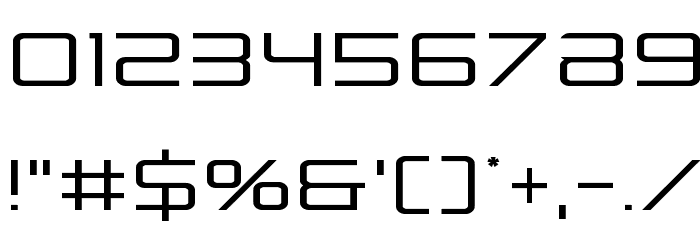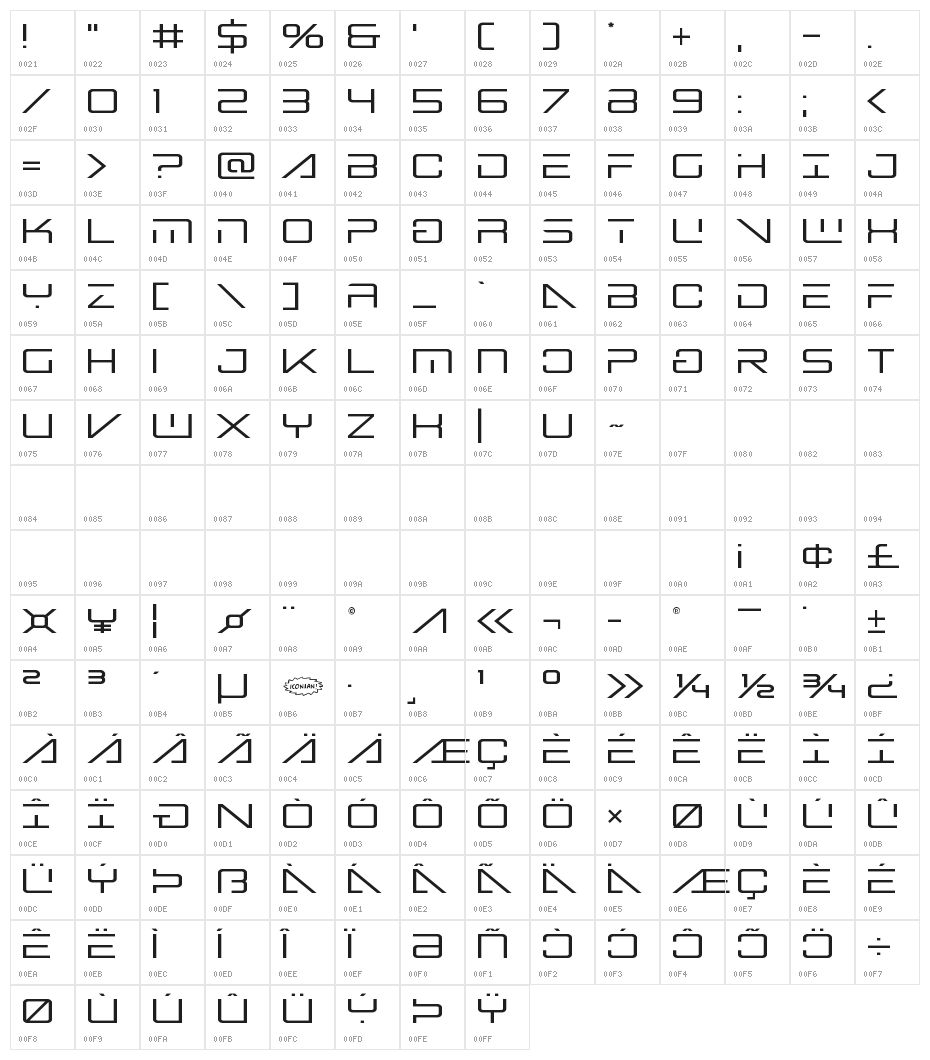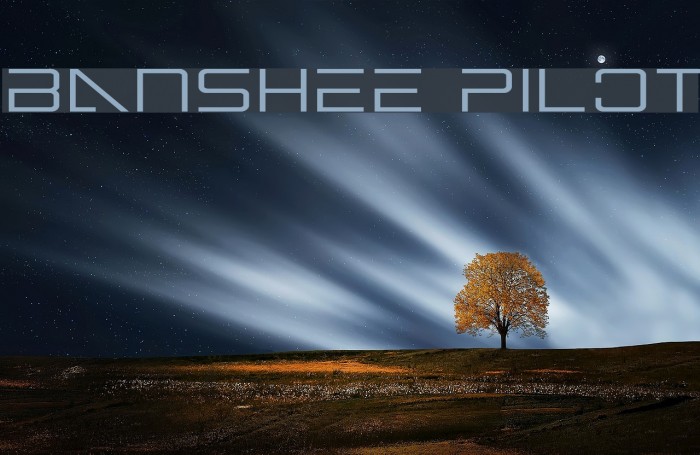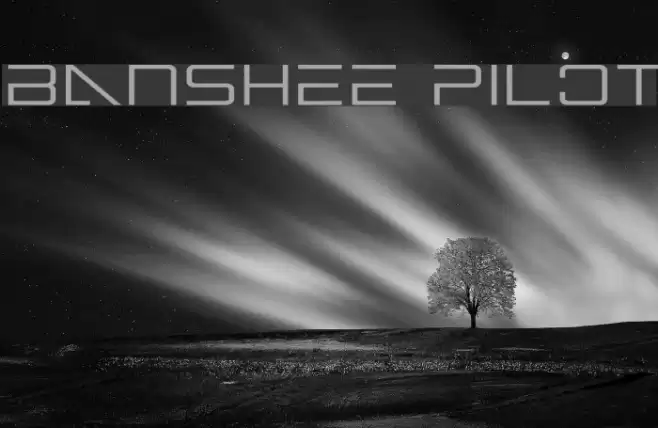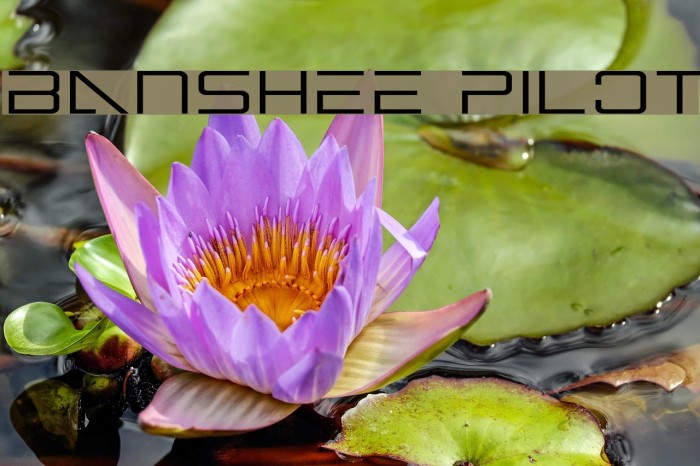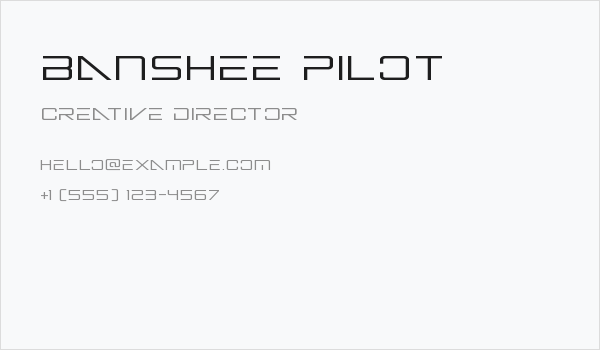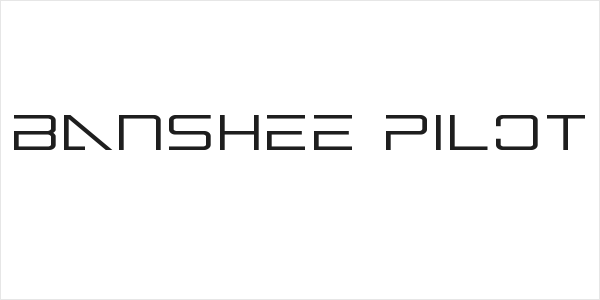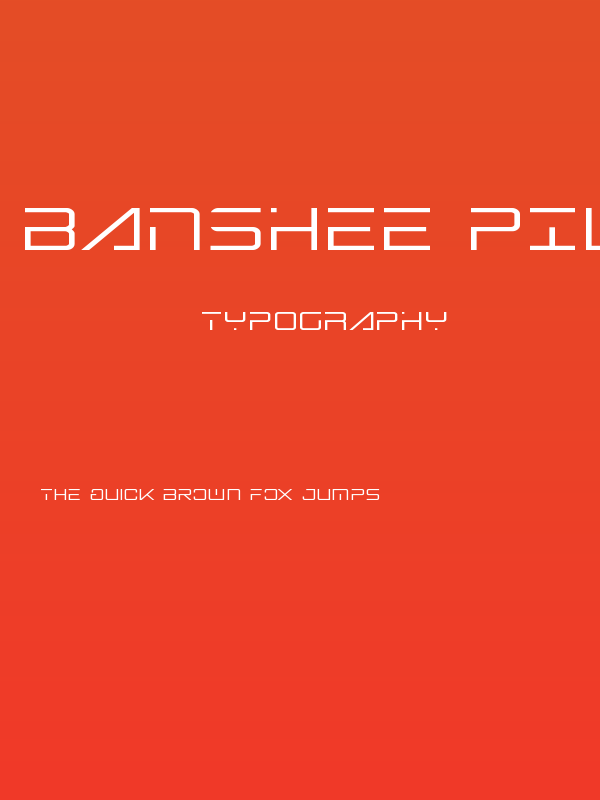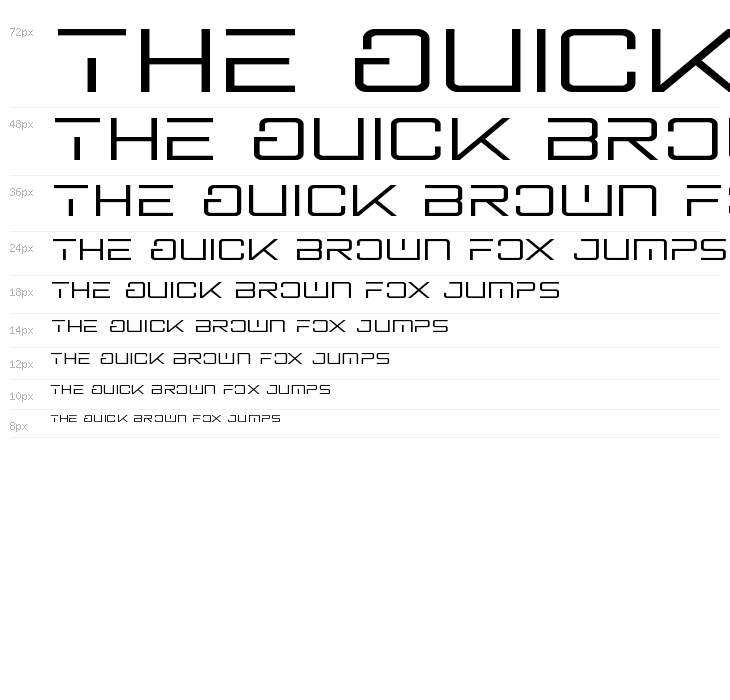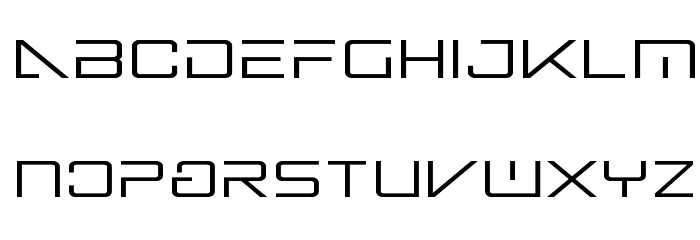
Banshee Pilot Font
Banshee Pilot Description
This font features a futuristic and geometric design, characterized by its angular and streamlined letterforms. The uppercase letters exhibit a consistent height with sharp edges and a uniform stroke width, giving it a sleek and modern appearance. The lowercase letters maintain the same geometric style, ensuring readability while adding a unique flair. Numbers and special characters are designed to match the overall aesthetic, making them suitable for a variety of digital and print applications. The font's clean lines and minimalistic approach make it ideal for projects that require a contemporary and tech-savvy look.
| Proposed Projects | Ideal for technology branding, sci-fi themed designs, digital interfaces, and modern advertising. |